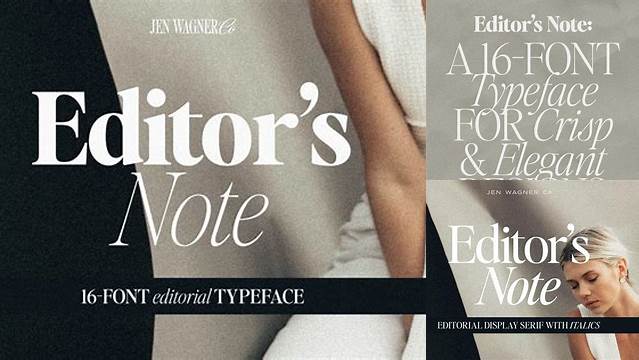
Editor's Note Font: Free Download & Usage Guide
In the realm of design and typography, the font plays a pivotal role in conveying the intended message and evoking the desired emotions. The Editor's Note font, with its distinctive characteristics and versatile applications, has garnered significant attention among designers, writers, and content creators alike. This comprehensive guide delves into the intricacies of the Editor's Note font, exploring its origins, features, usage, and, most importantly, how to access it for free.
The Editor's Note font, guys, is like that secret weapon in your design arsenal, the one that can instantly add a touch of class and sophistication to your projects. Whether you're crafting a sleek magazine layout, designing a captivating website, or simply sprucing up your personal documents, this font can be a game-changer. So, let's dive in and uncover the magic behind the Editor's Note font and how you can get your hands on it without spending a dime.
The Editor's Note font is a typeface that exudes elegance, professionalism, and readability. It often features a classic serif or sans-serif design, making it suitable for a wide range of applications, from formal documents to creative projects. The font's clean lines, balanced proportions, and distinct letterforms contribute to its overall appeal, ensuring that it remains legible even at smaller sizes. Typically, the Editor's Note font comes in various weights and styles, including regular, bold, italic, and condensed, providing designers with ample flexibility to match the font to their specific needs. Its versatility makes it a popular choice for publications, websites, and branding materials.
Think of the Editor's Note font as that well-dressed friend who always knows how to make a statement without being over the top. It's the kind of font that commands attention without screaming for it. The beauty of this font lies in its ability to blend seamlessly into any design while still adding a touch of personality and flair. Its versatility, as we mentioned, is a huge plus, making it a go-to option for everything from formal documents to funky creative projects. It's like the Swiss Army knife of fonts, always ready for action.
The Editor's Note font boasts several key features that distinguish it from other typefaces. First and foremost, its readability is exceptional, thanks to its carefully crafted letterforms and optimal spacing. This ensures that the text remains clear and legible across different media and sizes. The font also excels in versatility, seamlessly adapting to diverse design styles and applications. Whether you need a formal serif for a professional report or a clean sans-serif for a modern website, the Editor's Note font has you covered. Furthermore, the font often includes a wide range of weights and styles, allowing for precise control over the visual hierarchy and emphasis within your text. This comprehensive suite of features makes the Editor's Note font an invaluable asset in any designer's toolkit.
Let's break it down, shall we? Readability is king, guys, and the Editor's Note font wears the crown with pride. You can slap this font on anything, from a tiny business card to a massive billboard, and it'll still be crystal clear. That's a huge win in the design world. And then there's the versatility factor. This font isn't a one-trick pony; it can handle anything you throw at it. Need a serious serif for a legal document? Got it. Want a sleek sans-serif for a cutting-edge website? Done. Plus, the different weights and styles give you the power to play around and create visual magic. It's like having a whole font family at your fingertips.
The Editor's Note font finds applications in a wide array of design projects. Its clean and professional appearance makes it an excellent choice for publications, such as magazines, newspapers, and books. The font's readability ensures that long blocks of text remain engaging and accessible to the reader. In the realm of web design, the Editor's Note font can enhance the user experience by providing a clear and consistent typographic voice across the website. Its versatility also makes it suitable for branding materials, including logos, business cards, and marketing collateral. Furthermore, the font's elegant and timeless aesthetic lends itself well to formal documents, such as reports, presentations, and legal paperwork. Overall, the Editor's Note font is a versatile workhorse that can elevate any design project.
Okay, so where can you actually use this font? The possibilities are endless, but let's highlight a few key areas. Publications are a no-brainer. Think magazines, newspapers, books – anything with a lot of text needs a font that's easy on the eyes, and the Editor's Note font delivers big time. Web design is another prime target. A clean, consistent font can make or break a website, and this font can help you create a user experience that's both visually appealing and super functional. Branding materials? Absolutely. Logos, business cards, marketing swag – the Editor's Note font can add a touch of sophistication and professionalism to your brand. And don't forget those formal documents. Reports, presentations, legal stuff – this font will make you look like a total pro.